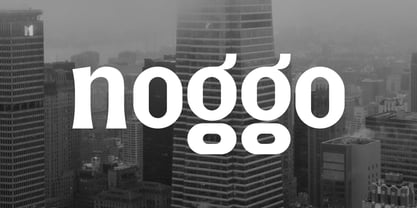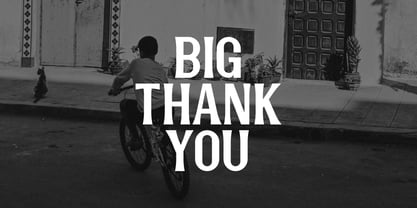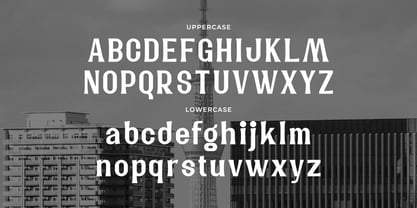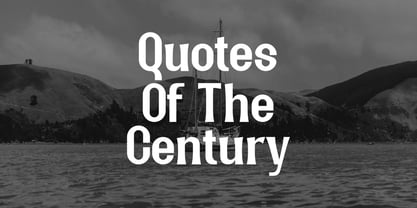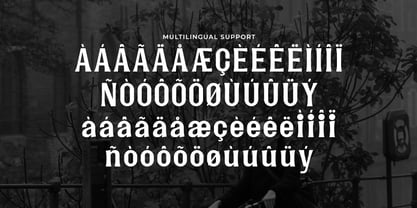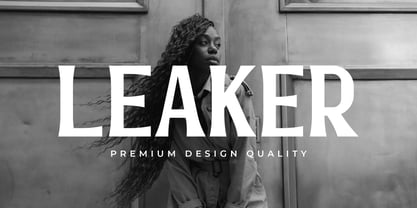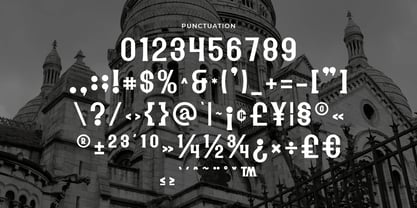
Noggo
por Artiveko
La familia tipográfica Noggo fue diseñada por Iwan Alwan y publicada por Artiveko. Noggo contiene 2 estilos y opciones de paquete familiar. Más información sobre esta familia
Noggo is a creative sans serif display font crafted to establish bold, memorable, and modern brand identities. Featuring a clean structure and distinctive letterforms, Noggo boasts a strong visual personality that ensures a unique typographic presence, making it ideal for logos and various creative display applications. This font is perfect for branding, logos, posters, packaging, social media graphics, merchandise, and visual identity systems. Noggo seamlessly combines modern simplicity with expressive character, ensuring readability while maintaining an eye-catching appearance in large compositions. Whether you're developing startup branding, designing for a creative agency, or producing standout promotional materials, Noggo serves as a confident and versatile design solution. More than just a font, Noggo is a creative branding tool designed for recognition and impact.
Diseñadores: Iwan Alwan
Fundición: Artiveko